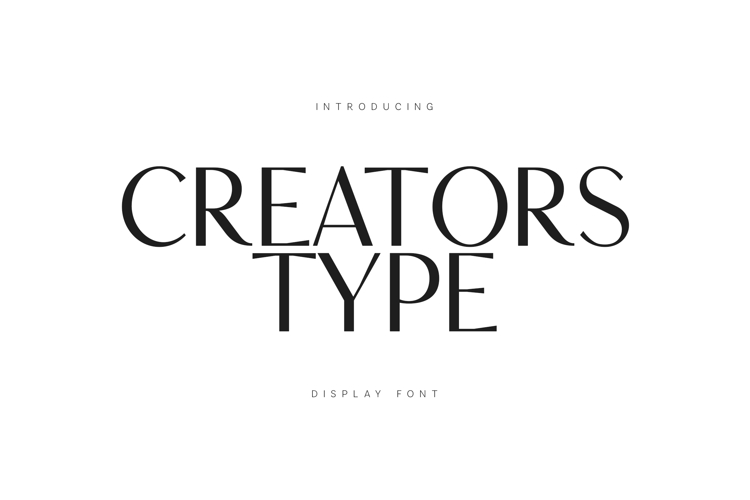
Creators Type Elegant Modern Serif Display Font
Introducing Creators Type, an elegant modern serif display font crafted for sophisticated branding, luxury packaging, editorial design, fashion magazines, high-end logos, and premium marketing materials.
Featuring refined letterforms, graceful curves, and stylish high-contrast details, Creators Type combines timeless serif elegance with contemporary minimalism. Its distinctive character creates a luxurious visual presence while maintaining excellent readability across headlines, logos, packaging, and editorial layouts.
Designed for creatives, designers, and brands seeking a polished and memorable identity, Creators Type works beautifully in fashion campaigns, beauty products, luxury packaging, wedding stationery, magazines, social media graphics, and premium branding projects.
With extensive multilingual language support and carefully crafted punctuation, this typeface is built to elevate modern visual storytelling.
Features- Uppercase & Lowercase
- Numbers & Punctuation
- Extended Latin Support
- Multilingual Characters
- Elegant Modern Serif Design
- High Contrast Letterforms